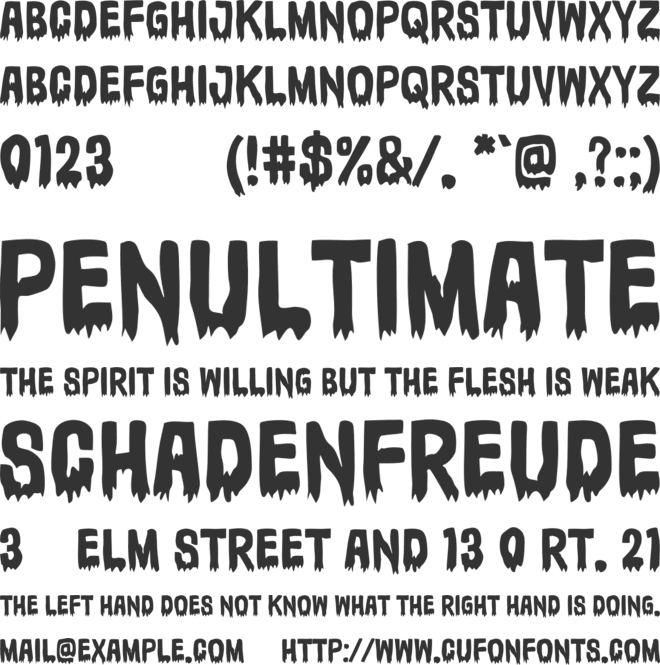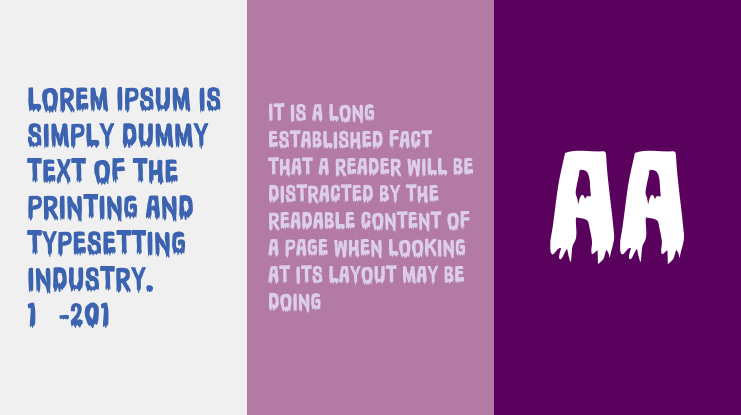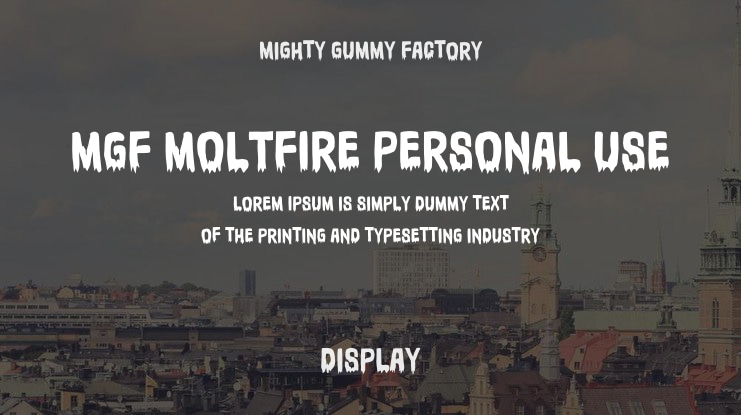
MGF Moltfire Personal Use Font
Mighty Gummy Factory
MOLTFIRE is a bold dripping display font inspired by molten fire and horror aesthetics. Its playful yet spooky vibe makes it stand out in any design, bringing fiery energy with a creepy twist. The letterforms feature rounded bold strokes with dripping edges, creating a sense of movement and intensity.